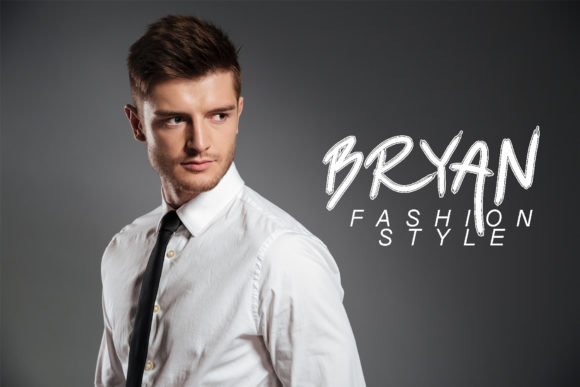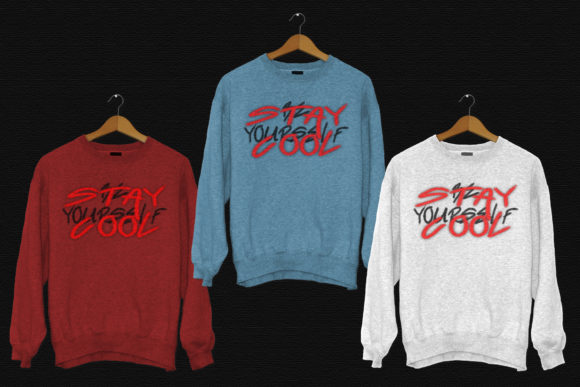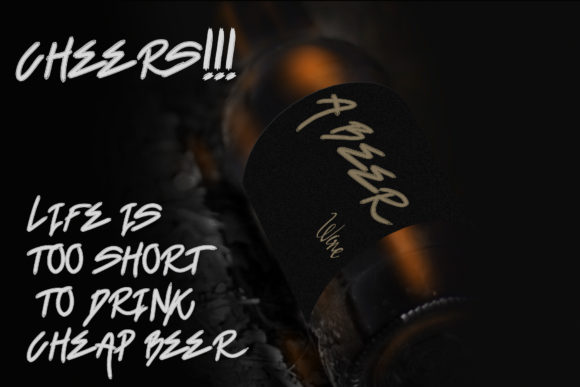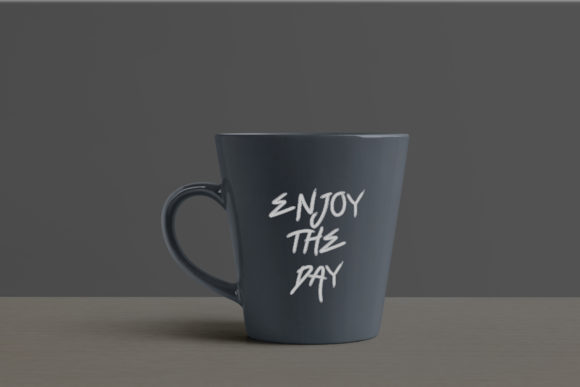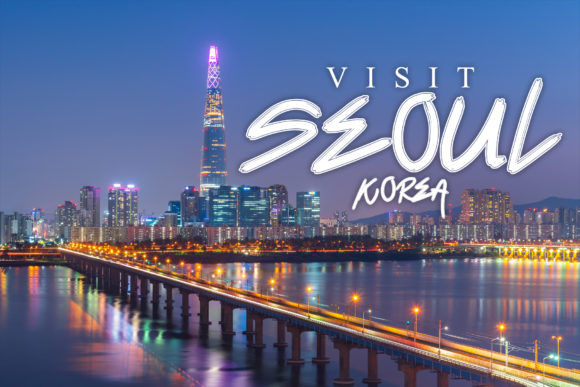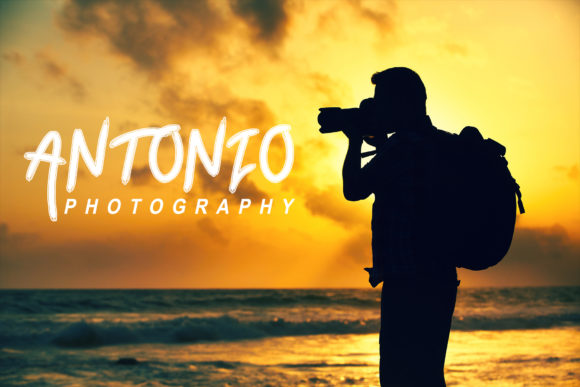
The Designer’s Delight: Unleashing the Power of Black Venom Font
I’ll never forget the time I was working on a project for a client who wanted a fun, quirky vibe for their brand. I spent hours scrolling through font libraries, but nothing seemed quite right. That was until I stumbled upon Black Venom Font. It was like a breath of fresh air – a handwritten font that embodied the perfect blend of playfulness and authenticity. In this article, I’ll share my experience with Black Venom, its features, and how to make the most of it in your designs.
An Honest Review of Black Venom Font
- ✨ Unique and quirky handwritten style that’s perfect for creative projects
- 💫 Enchanting and fun, adding a touch of personality to any design
- 🎨 Versatile and suitable for a wide range of applications, from branding to crafting
While Black Venom Font is an amazing addition to any design project, there are a few things to keep in mind:
- 🤔 Some characters may not work well in all contexts, so it’s essential to test the font thoroughly
- ⚠️ Limited availability of certain OpenType features, which might limit its use in specific design applications
Exploring Alternatives to Black Venom Font
The Story Behind Black Venom Font
Black Venom Font was designed with the intention of creating a unique, handwritten font that captures the essence of fun and quirkiness. The designer aimed to create a font that would add a touch of personality to any design project, from branding to crafting. While the exact story behind the font’s creation may be unknown, its impact on the design community is undeniable.
Q: What makes Black Venom Font so special?
A: Black Venom Font is special because of its unique, handwritten style that adds a touch of fun and quirkiness to any design project.
Q: Is Black Venom Font suitable for body text?
A: While Black Venom Font is highly legible, it’s best suited for headings, titles, or short paragraphs. For longer body text, a more traditional font might be more suitable.